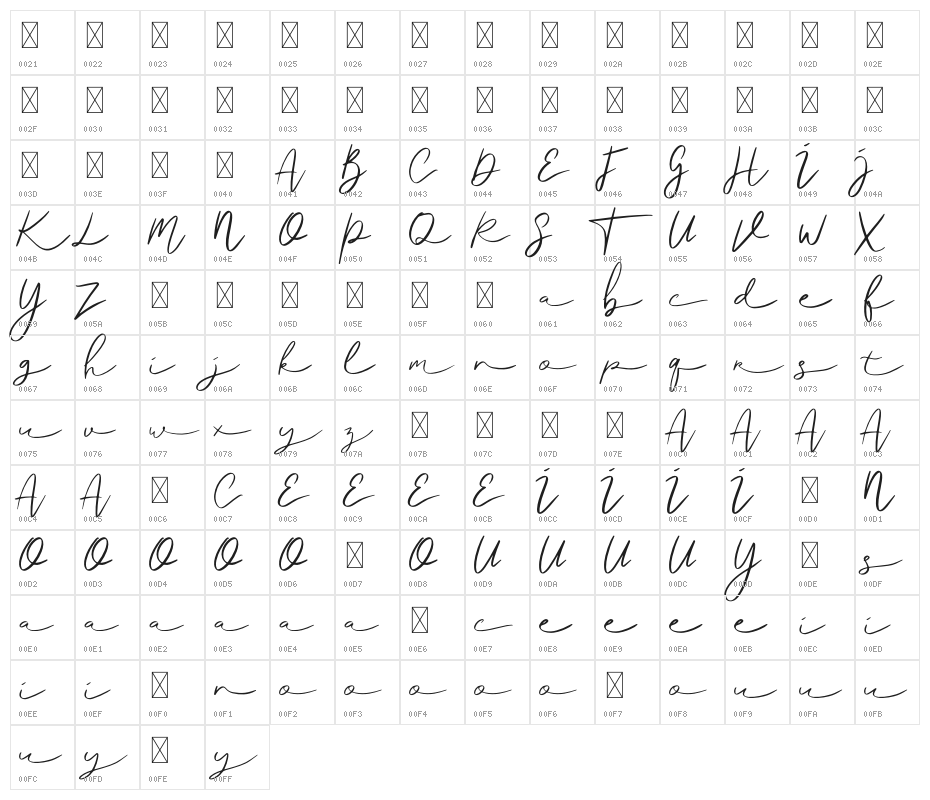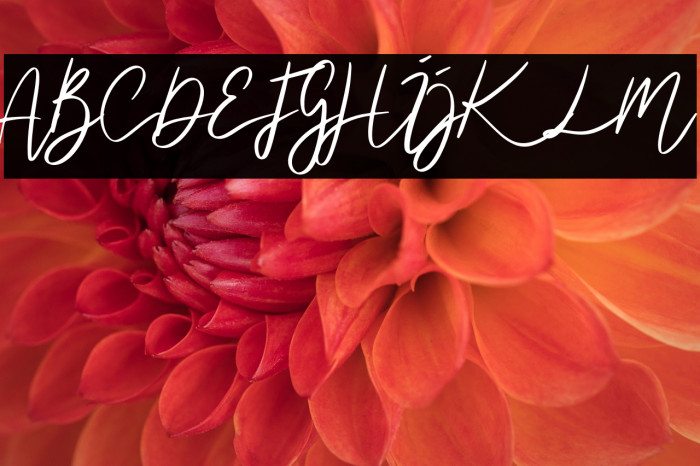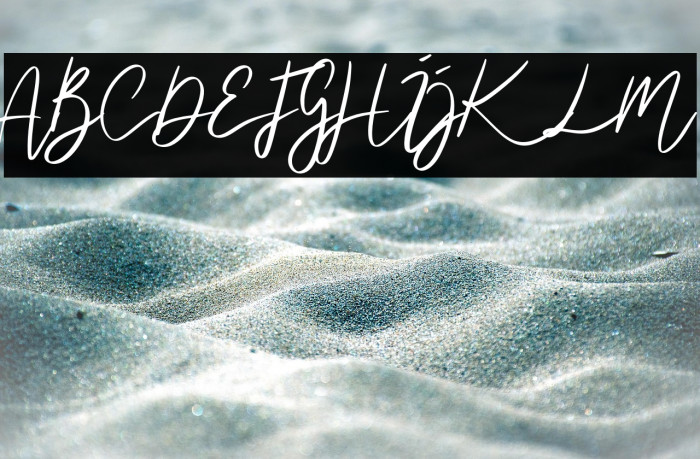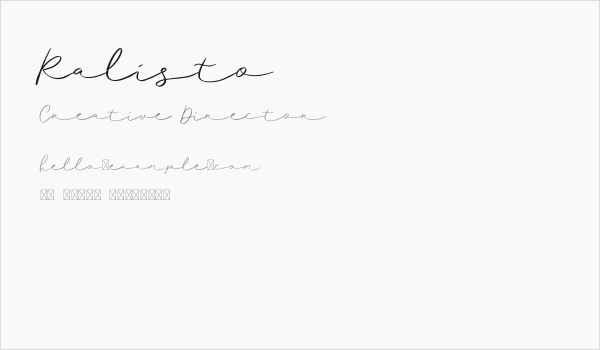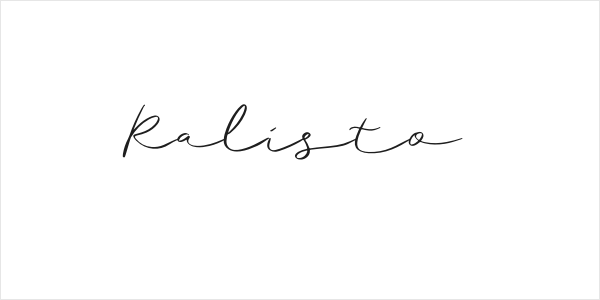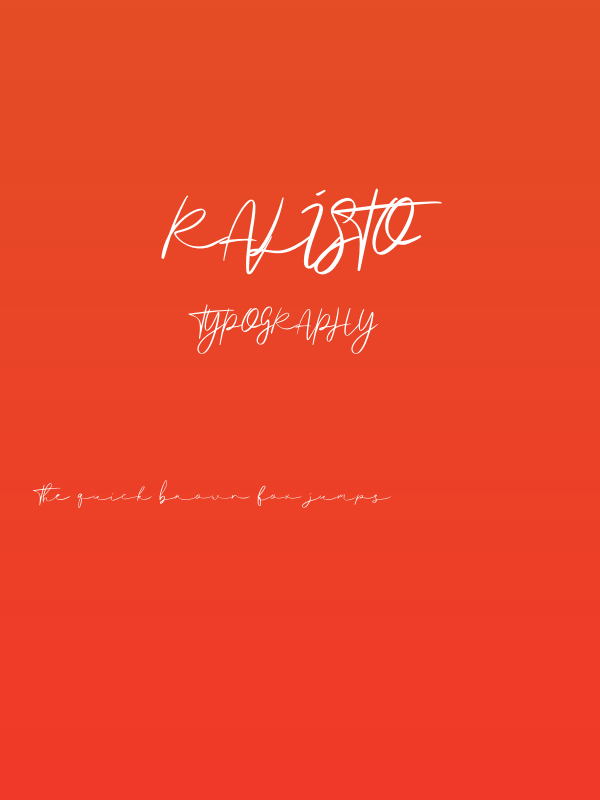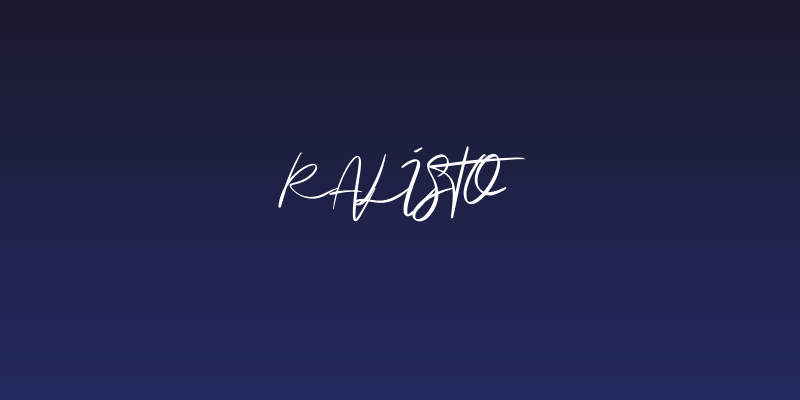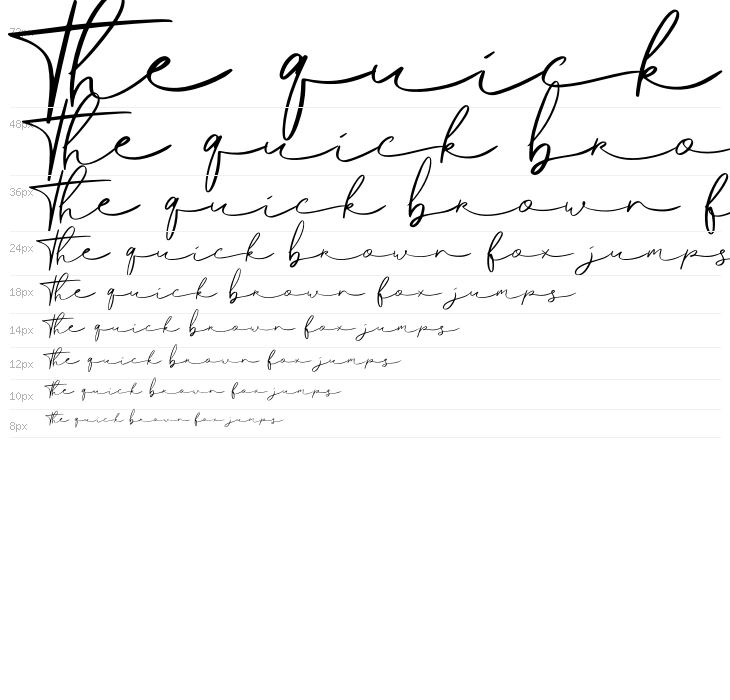
Ralisto Font
Ralisto Description
This font features an elegant, flowing script style that mimics natural handwriting. The uppercase letters are bold and dynamic, with sweeping curves and varying line thickness that add a sense of movement and grace. The lowercase letters maintain a delicate and airy appearance, with long ascenders and descenders that enhance its handwritten feel. The overall design is both sophisticated and approachable, making it suitable for a variety of creative applications. The characters are well-spaced, ensuring readability while maintaining the artistic flair of the script.
| Proposed Projects | Ideal for wedding invitations, greeting cards, personal branding, and elegant packaging designs. |